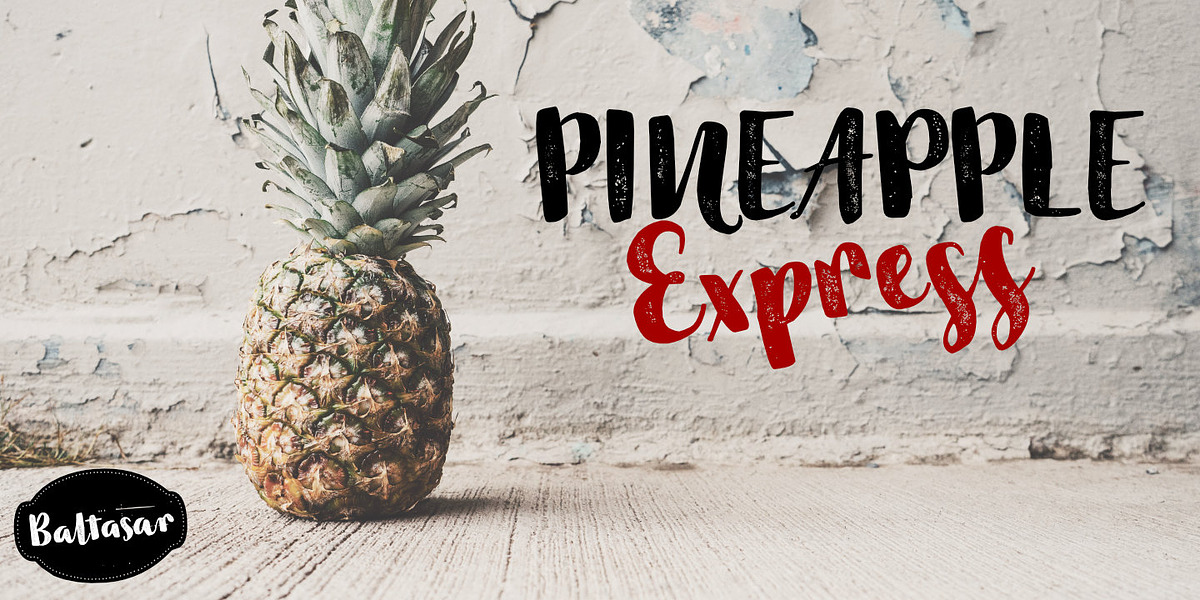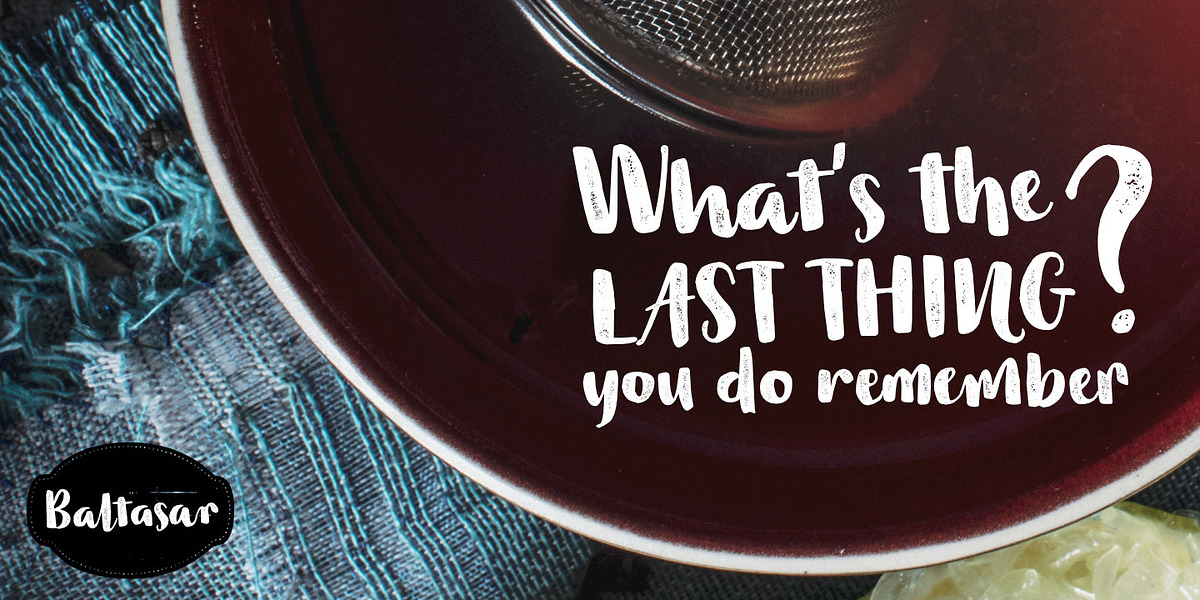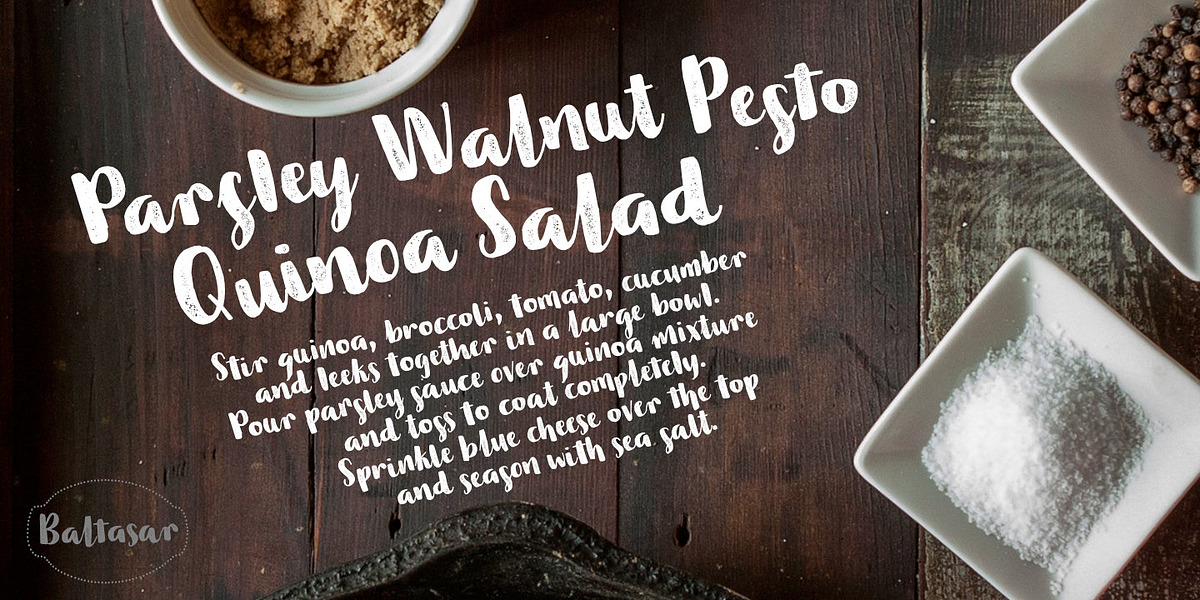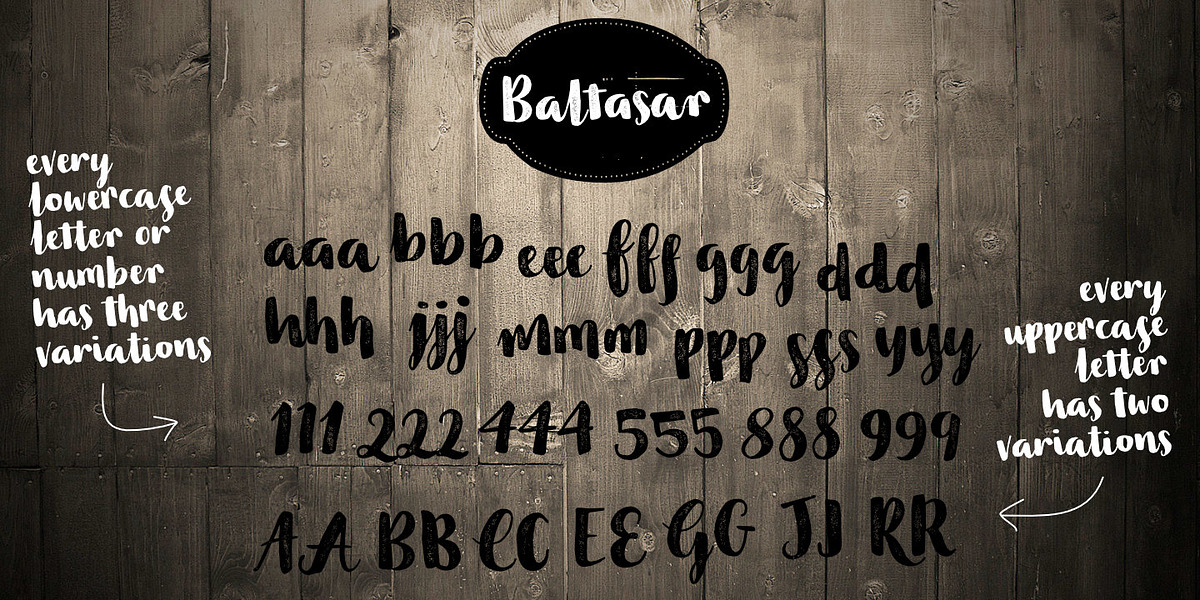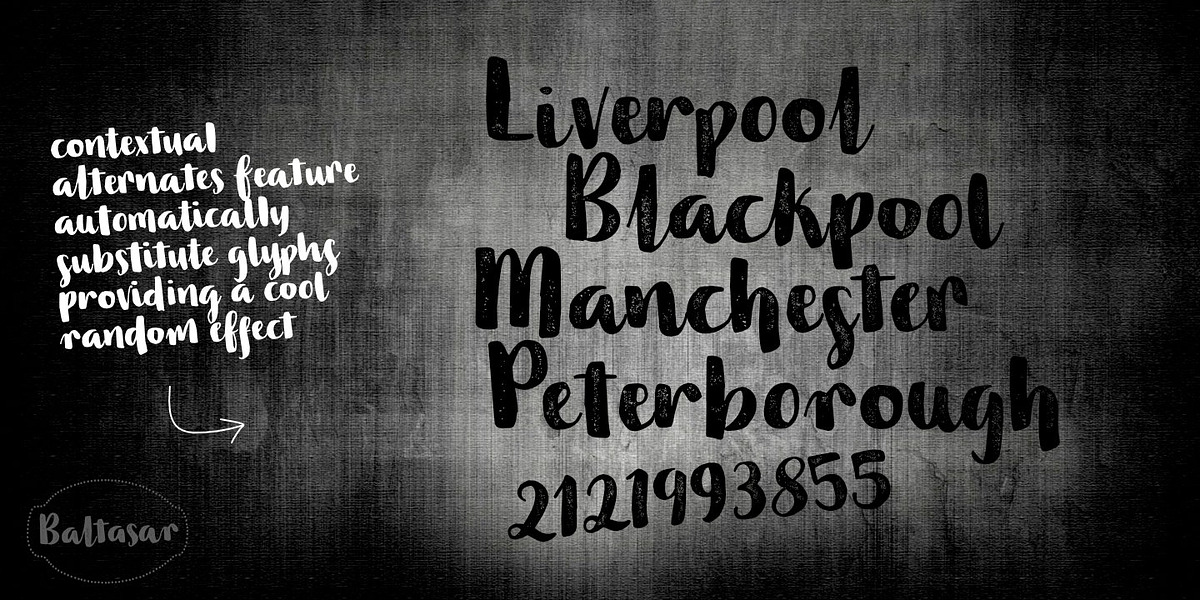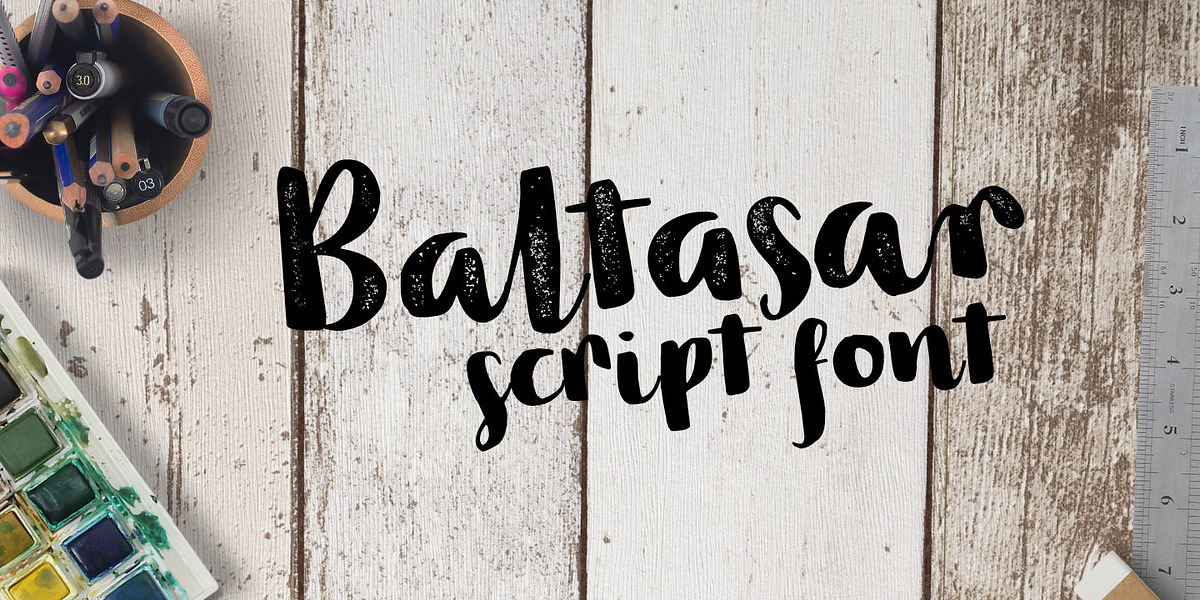
Baltasar
Baltasar is a modern calligraphic brush script font designed to mimic natural handwriting. Its key feature is the inclusion of three variations for each lowercase letter, automatically alternated in OpenType-savvy applications to create a more organic and less repetitive look. This hand-drawn style lends itself well to creative projects such as branding, invitations, and calligraphy.